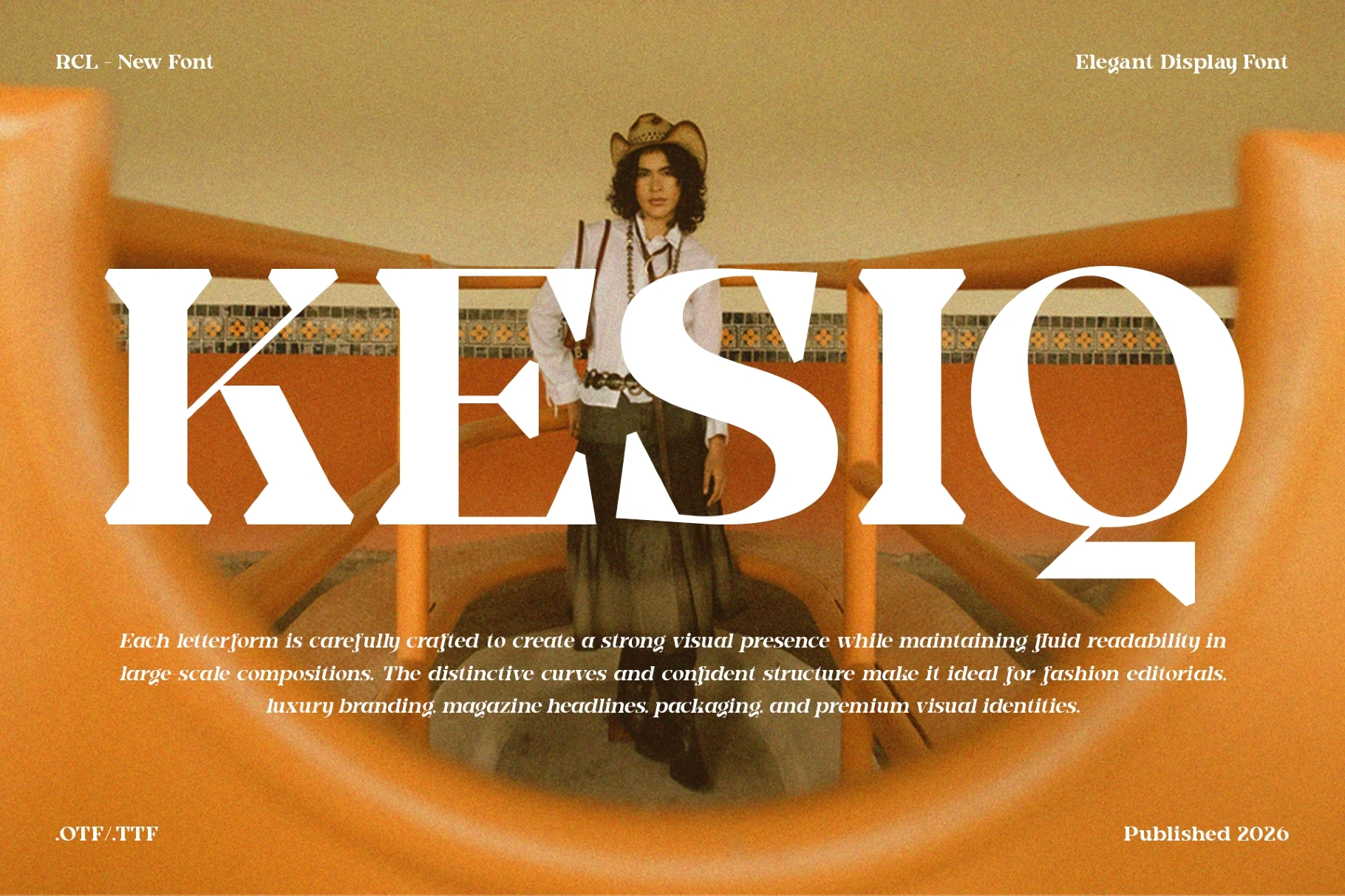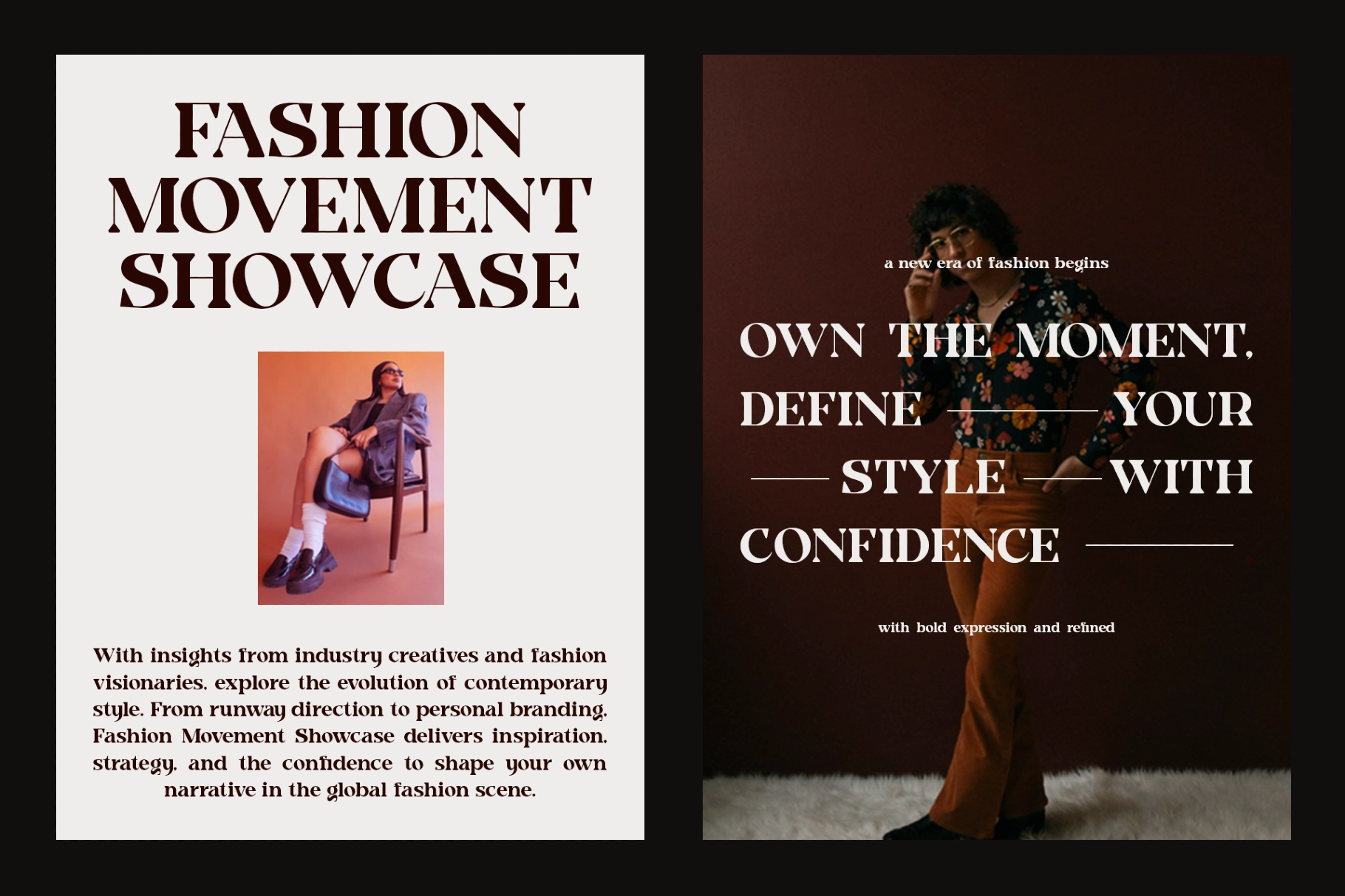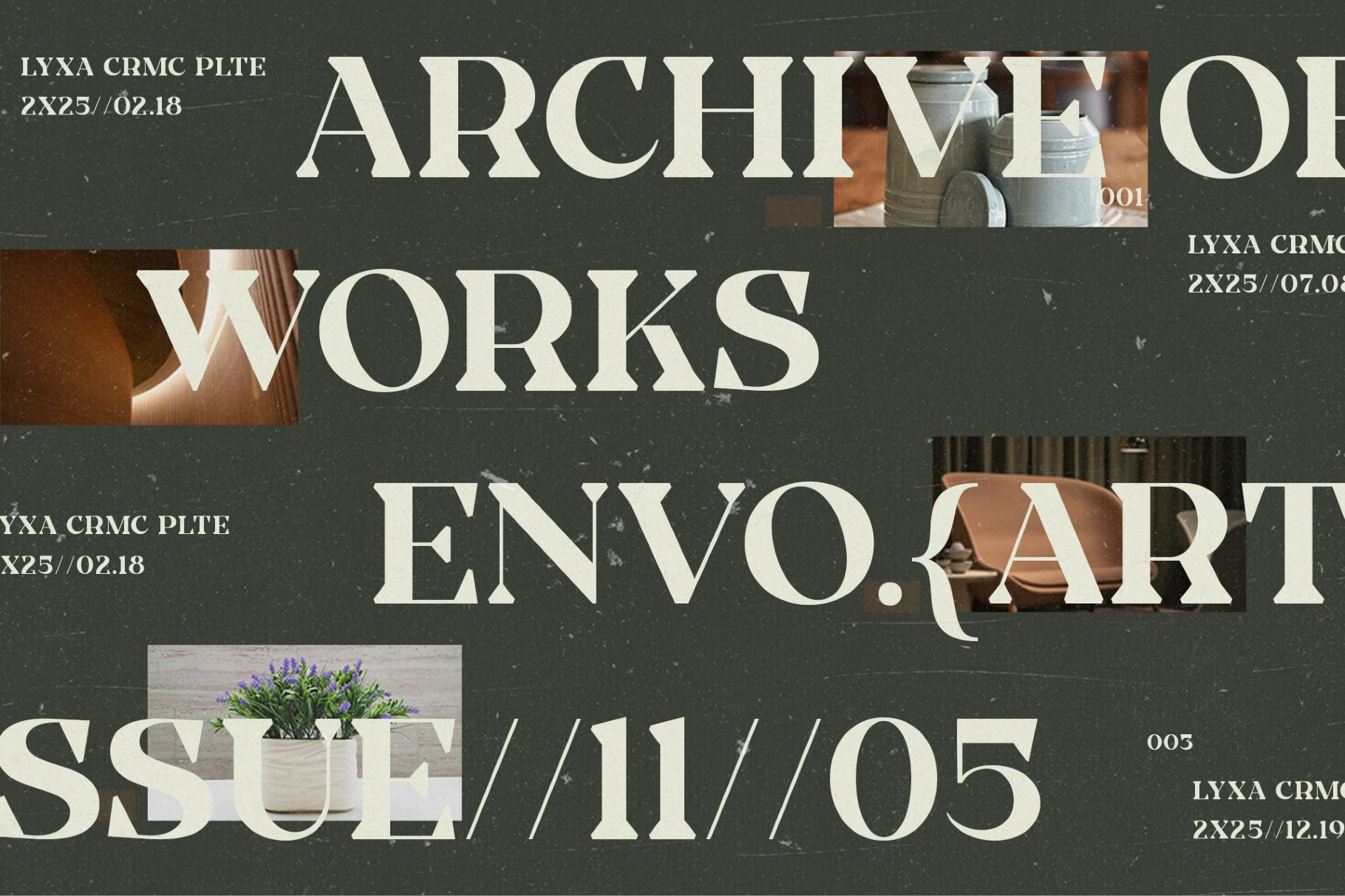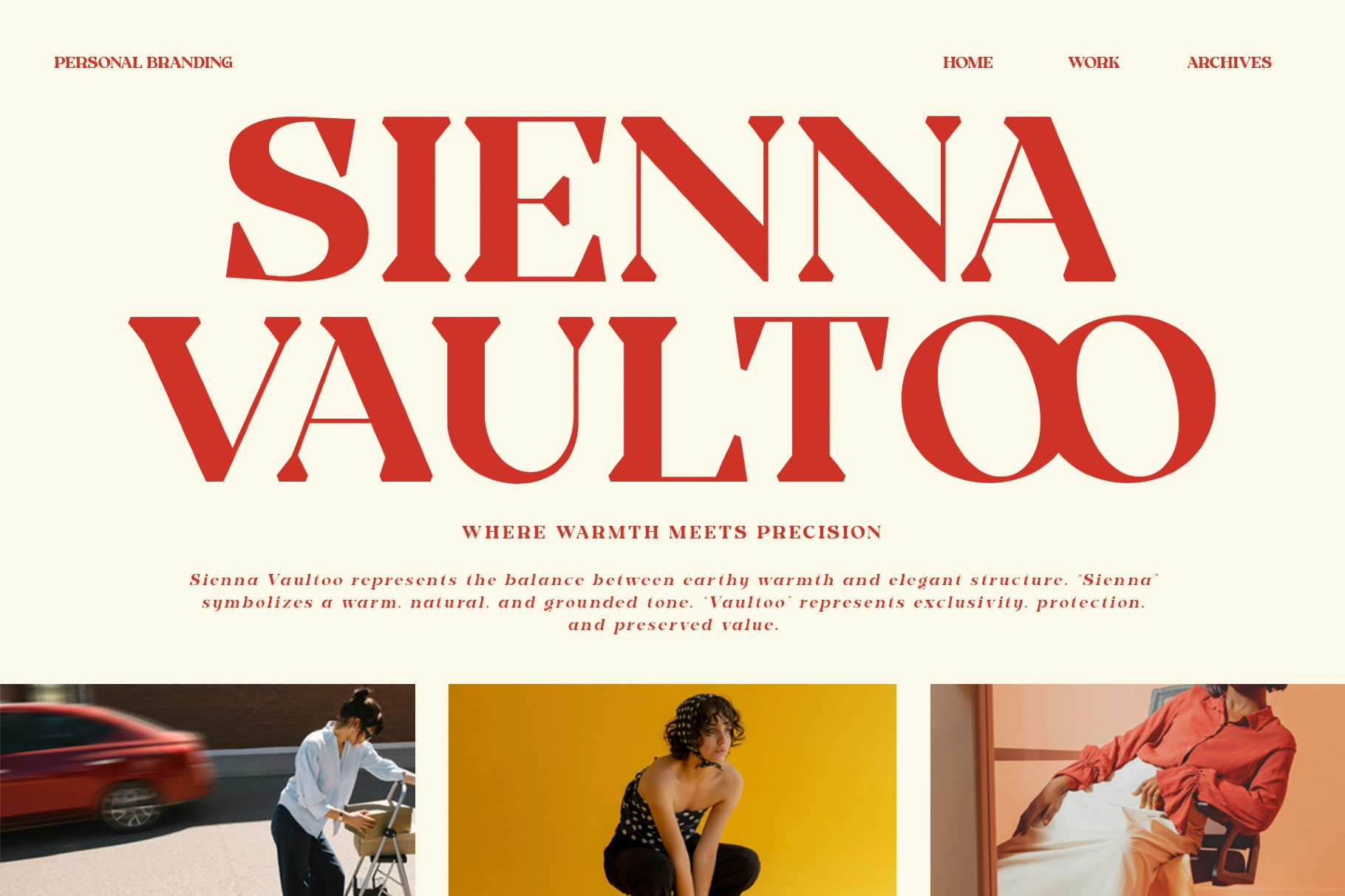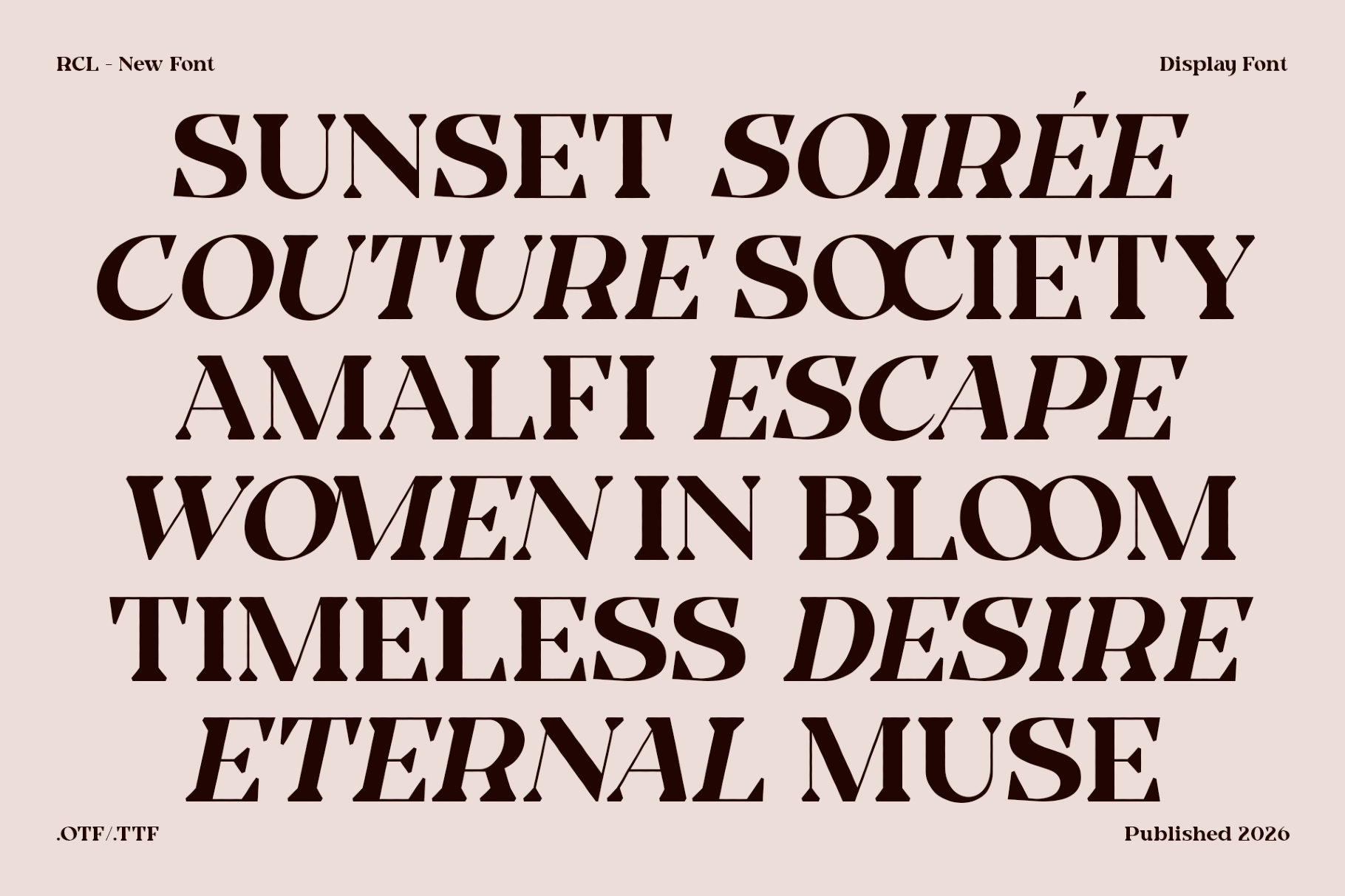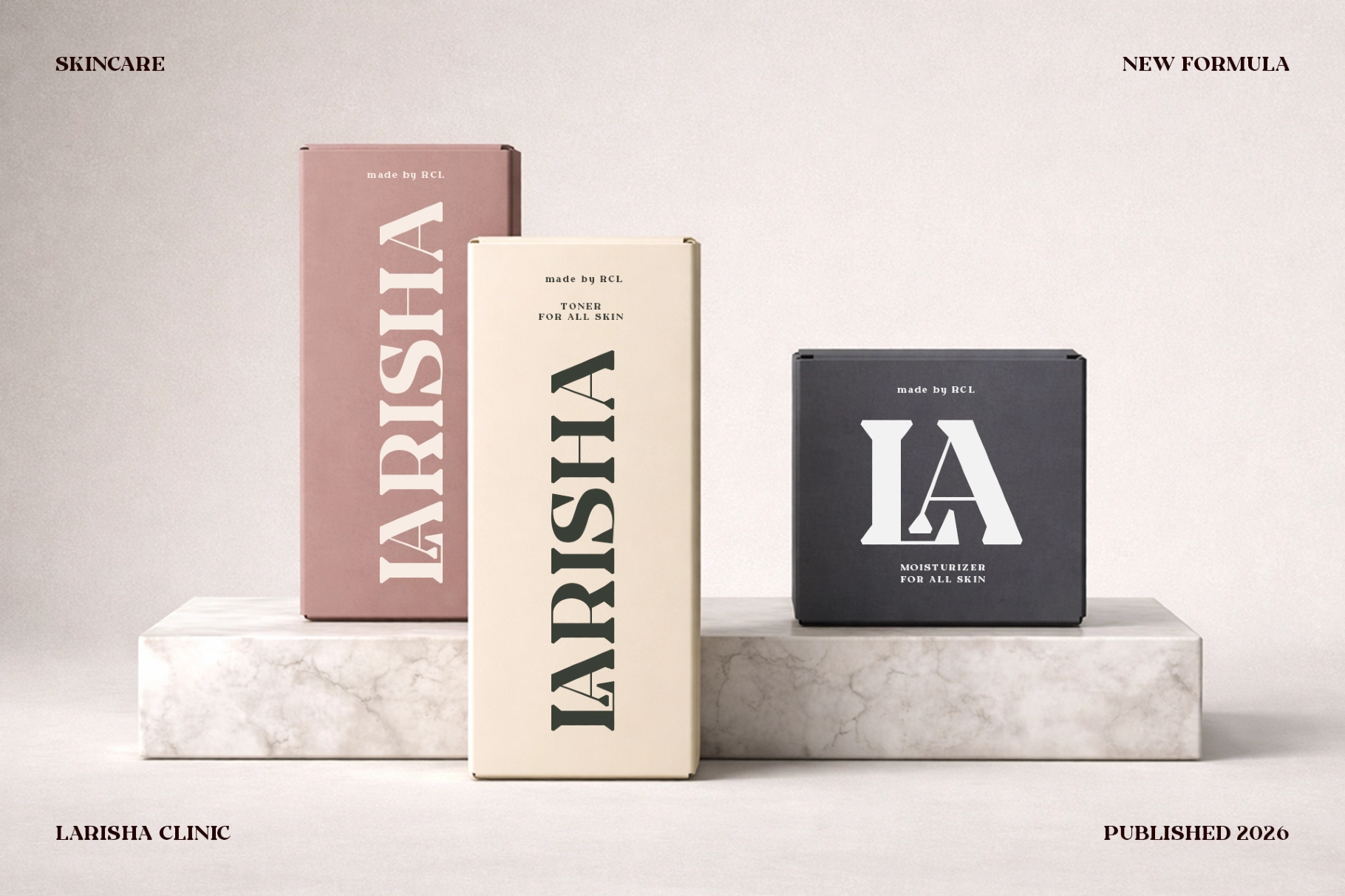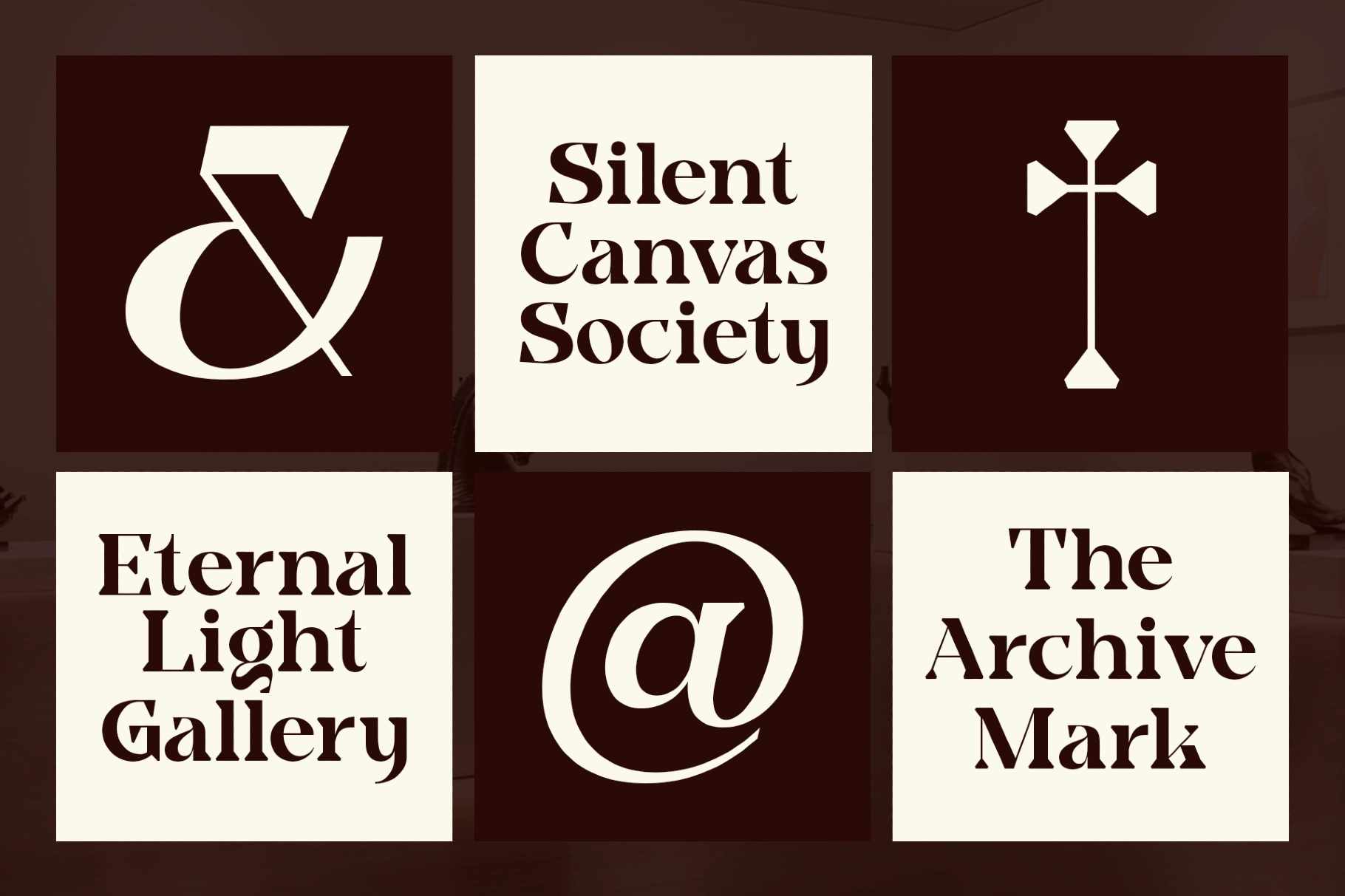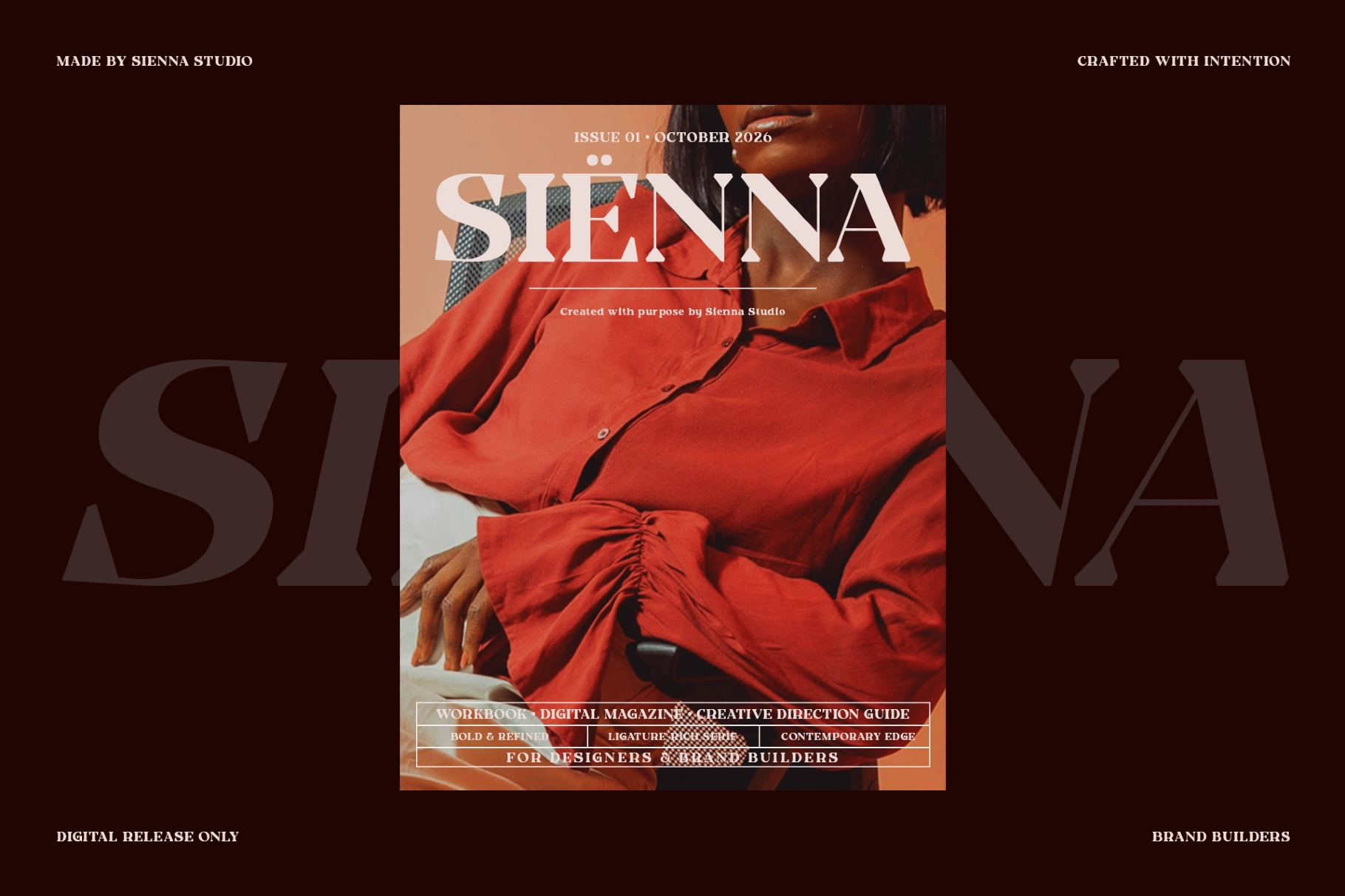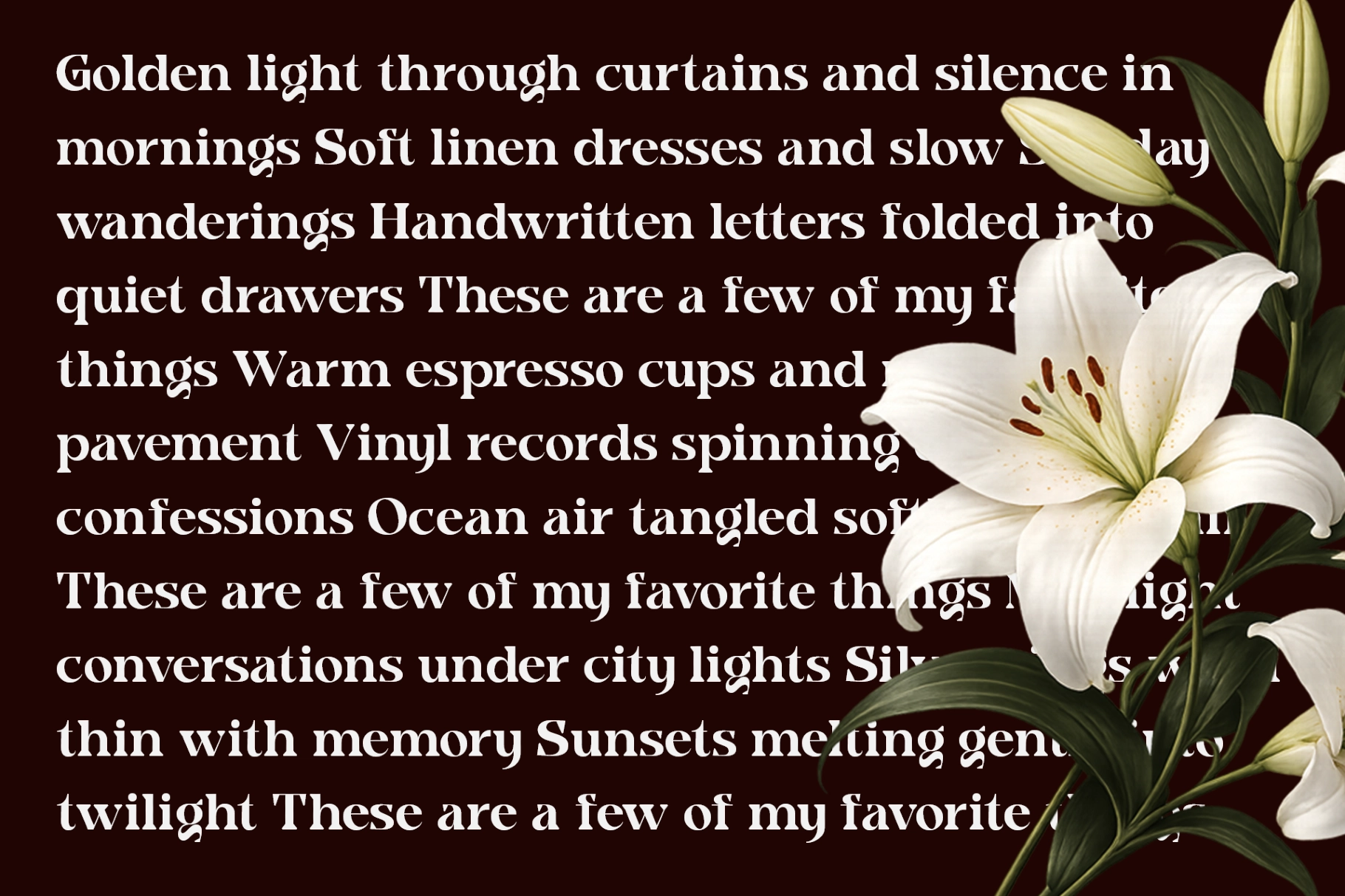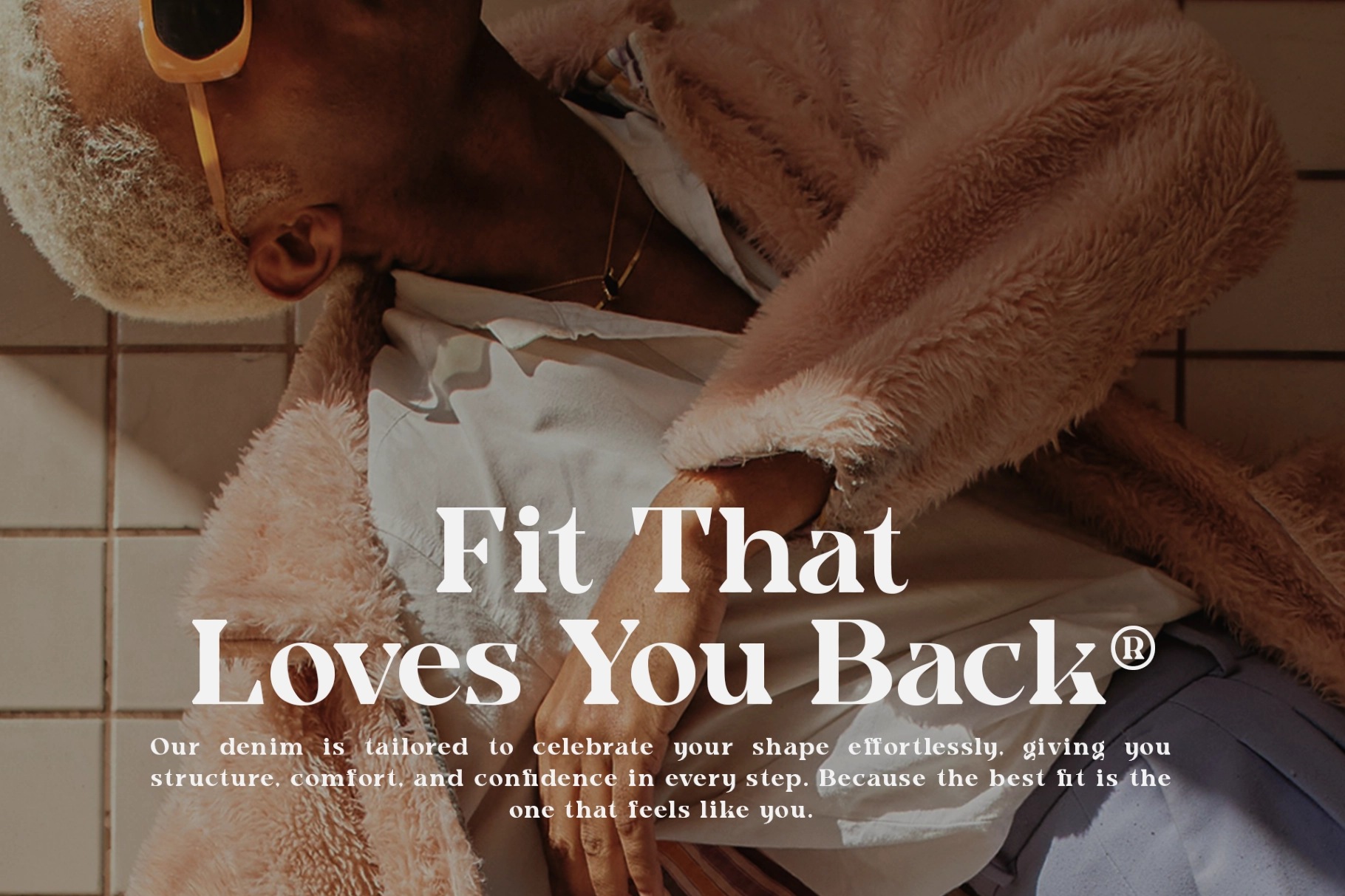
Kesiq – Elegant Modern Serif Display Font
This elegant serif is made for polished headlines, refined brand systems, and visual identities with a quiet expensive streak. High-contrast strokes, sharp bracketed cuts, and graceful curves give the letters a couture-like presence, while the readable proportions keep large compositions clean and composed.
Kesiq suits luxury branding, fashion editorials, magazine headlines, logo design, perfume packaging, boutique websites, wedding stationery, art book covers, restaurant identities, gallery posters, beauty campaigns, lookbooks, and high-end social media graphics. The Regular style is crisp and architectural, while the Oblique adds a poised editorial slant for pull quotes, subheadings, and elegant accent text.
- 2 styles: Regular, Italic